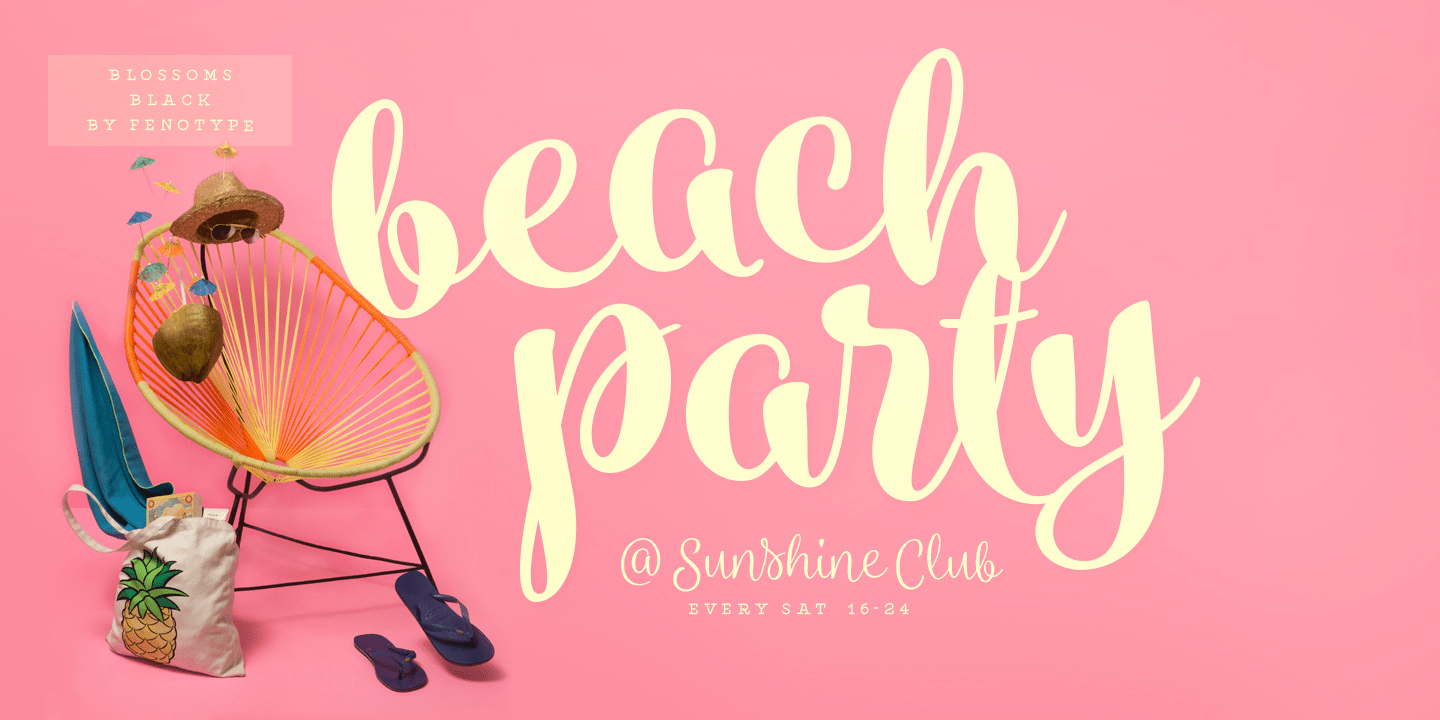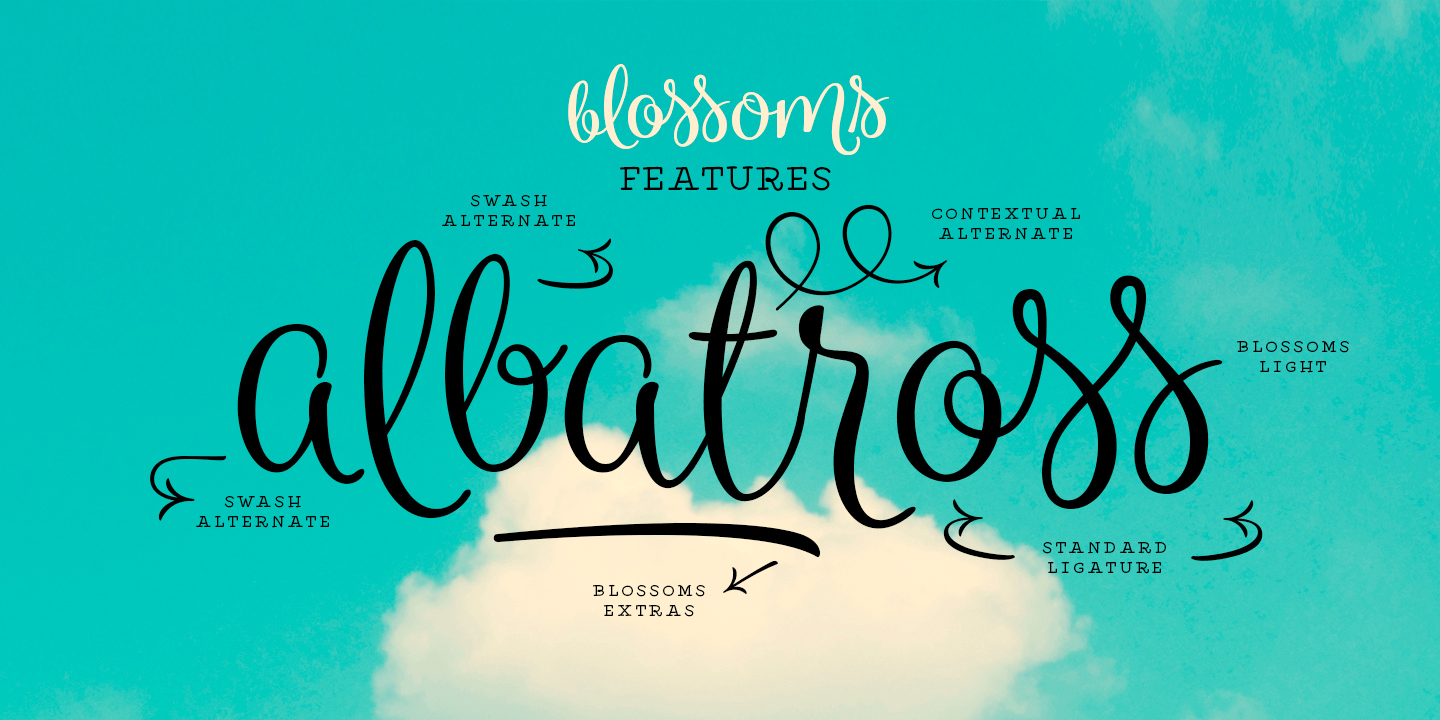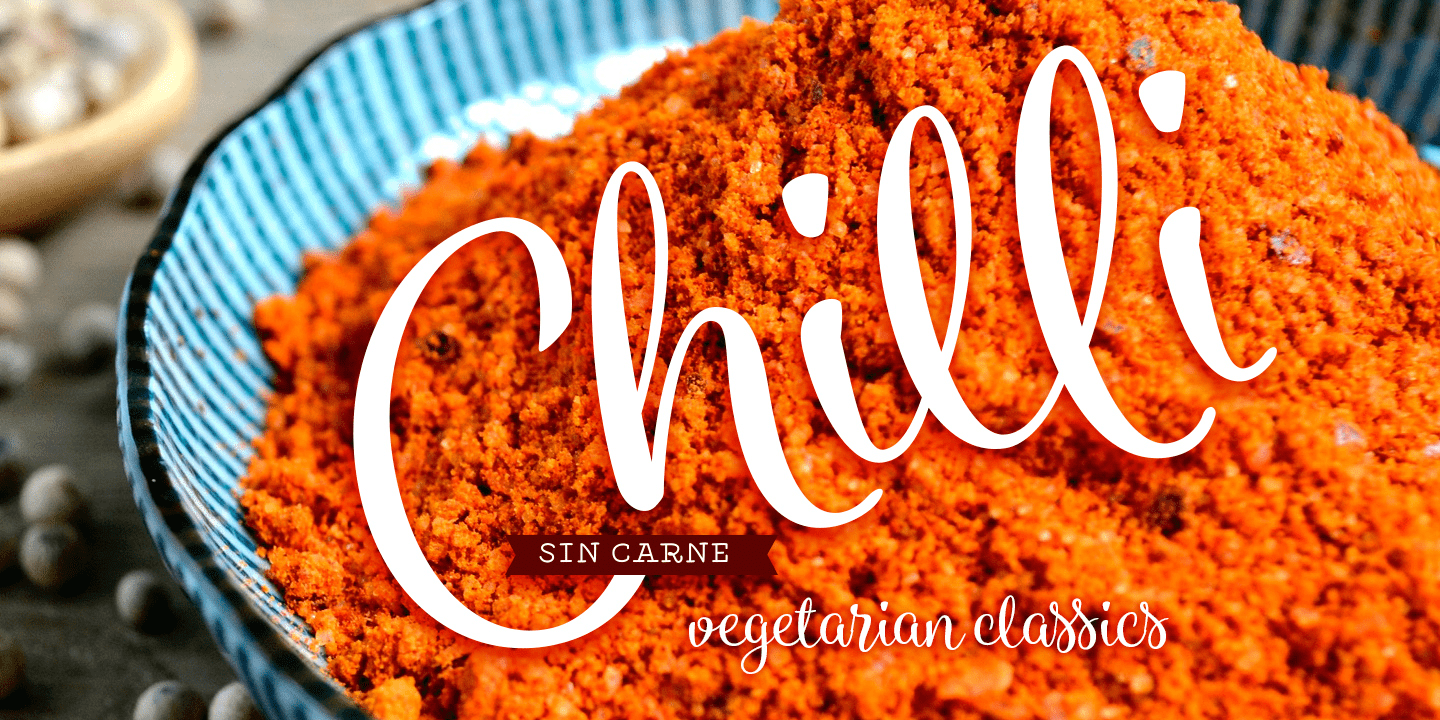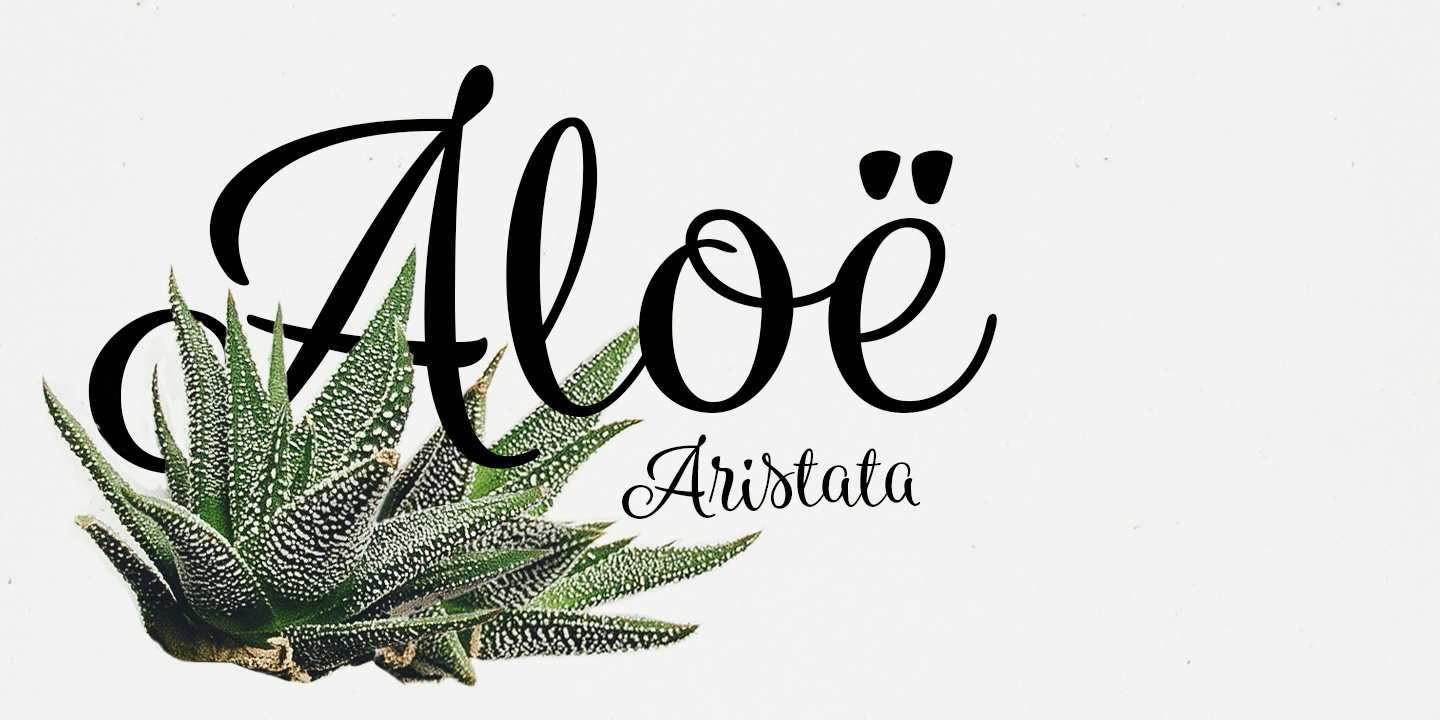
Blossoms is a fresh connected script family of four weights and a pack of Extras. It\’s packed with Contextual Alternates and Standard Ligatures that will keep the flow natural and for extra impact there\’s Swash and Titling Alternates, and even more alternates…